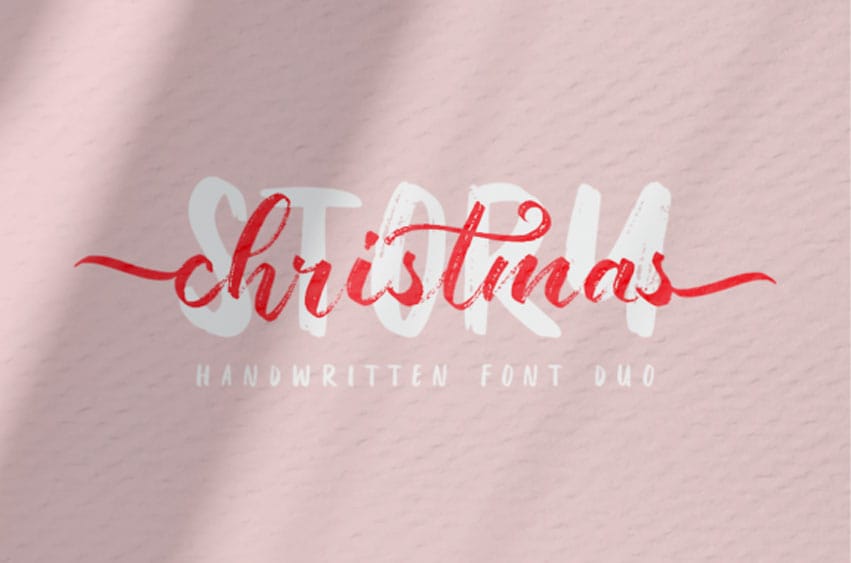
Christmas Story Font is a handwritten and display duo font perfect for creating beautiful combinations for all your design projects!
Christmas Story is perfect for all types of business projects such as logo design, business cards, greeting cards, magazines, newspapers, social media designs, watermarks, and many more.